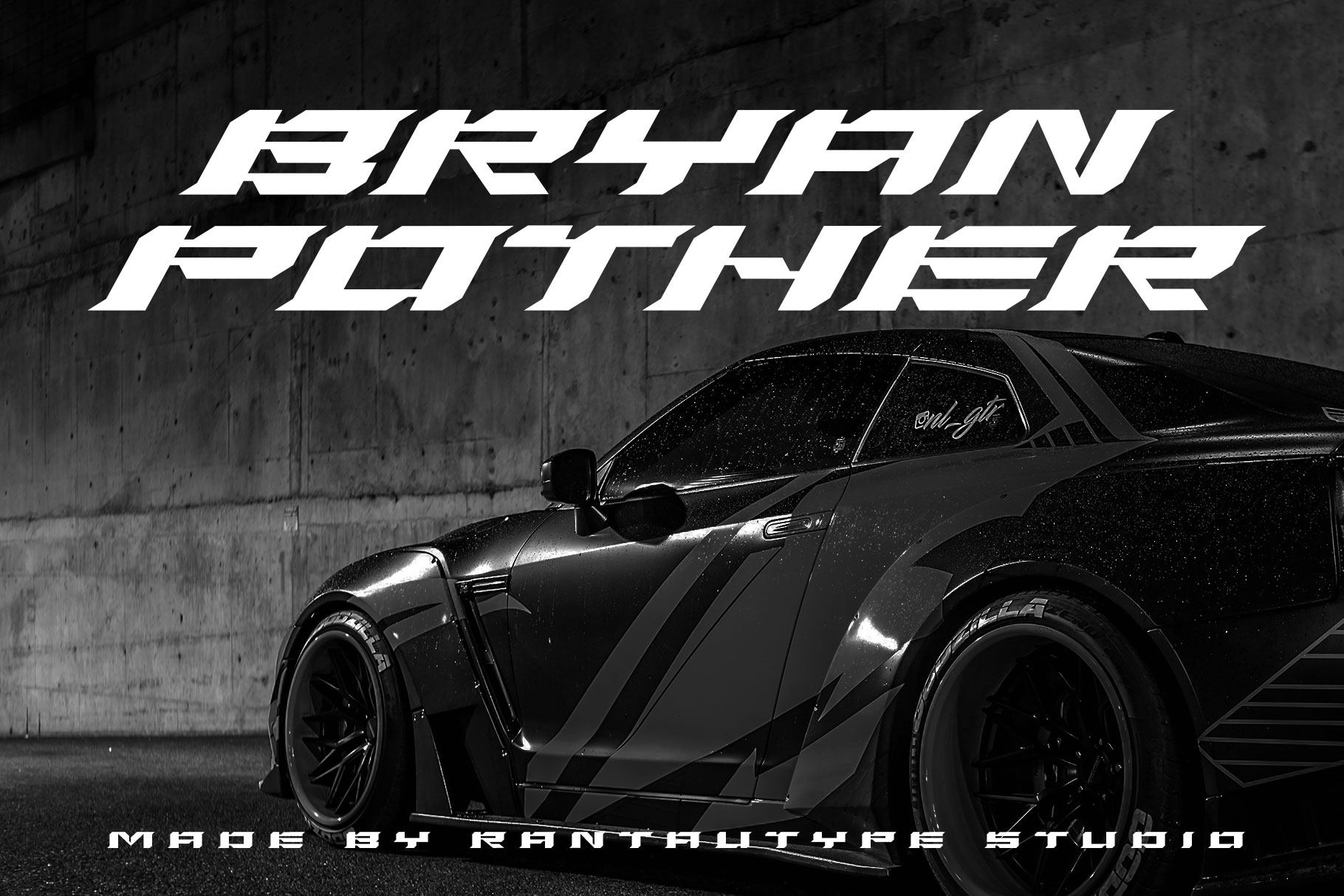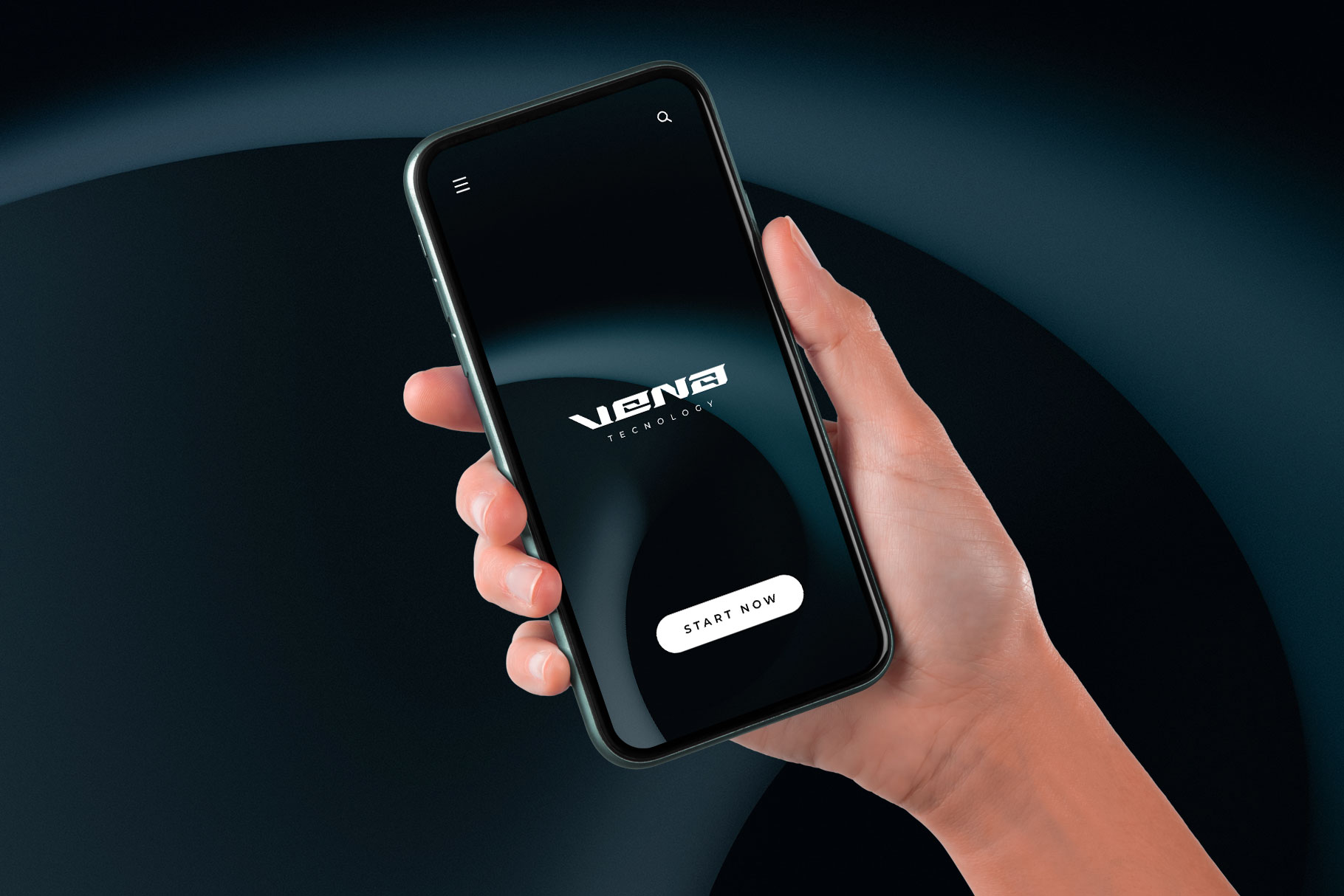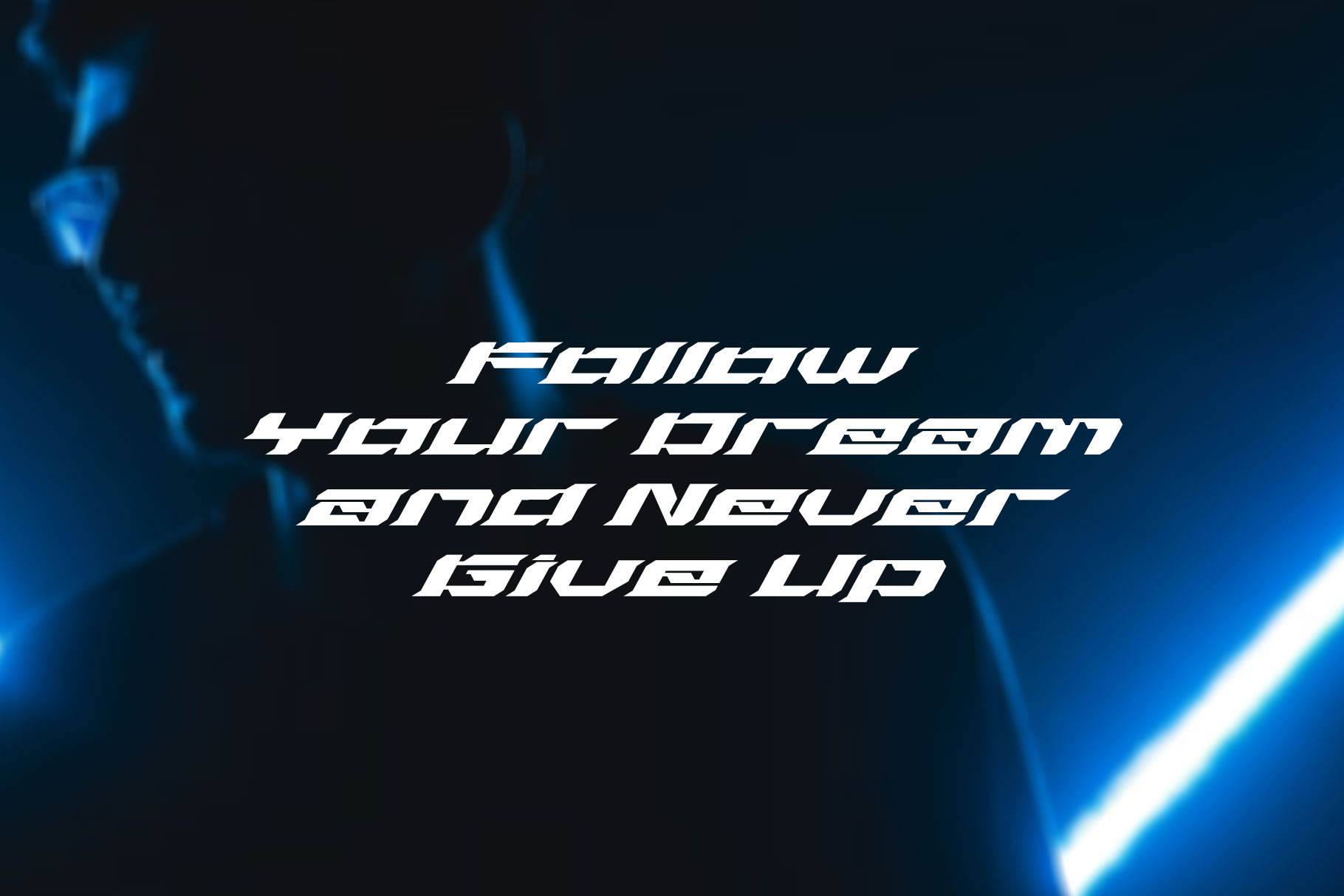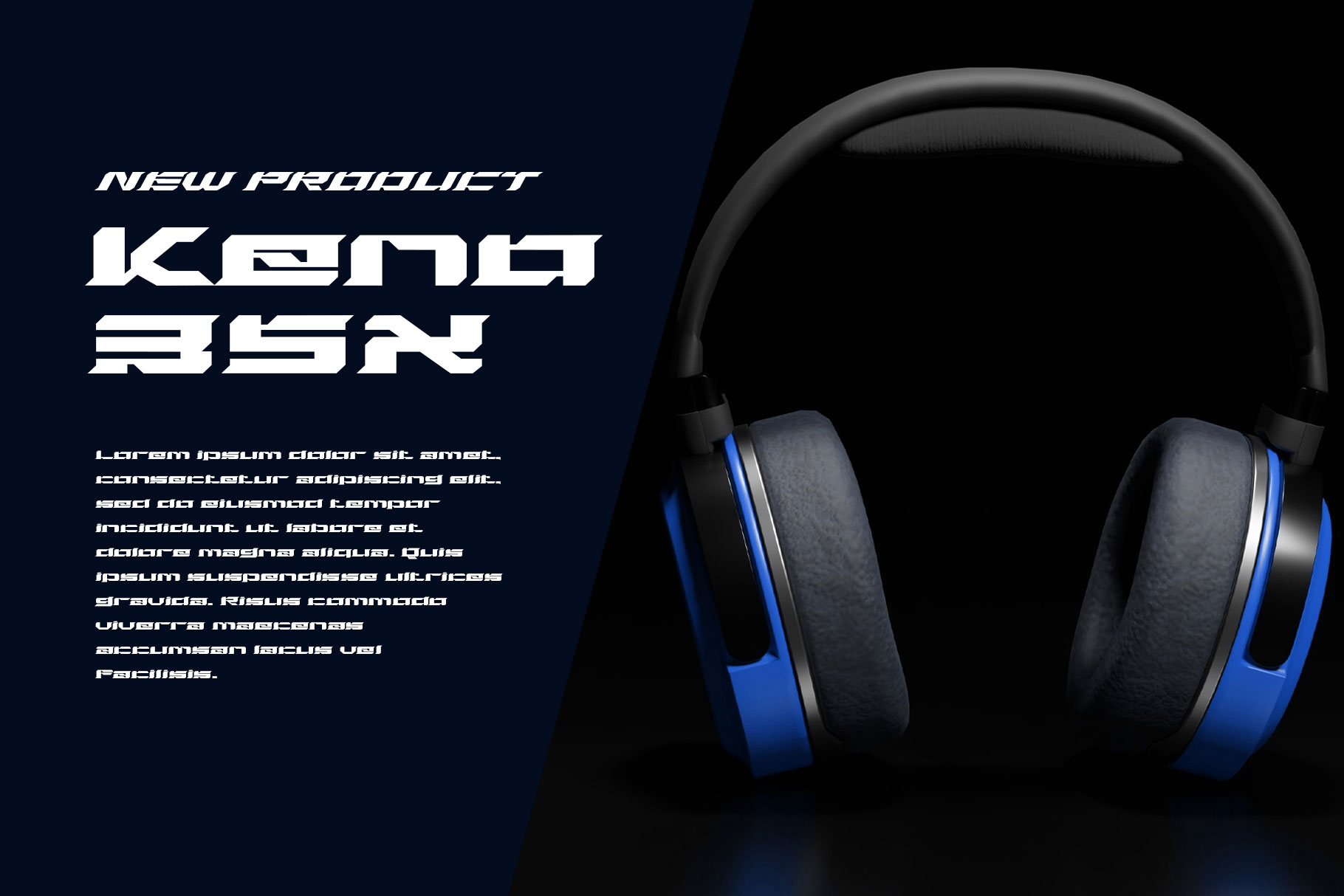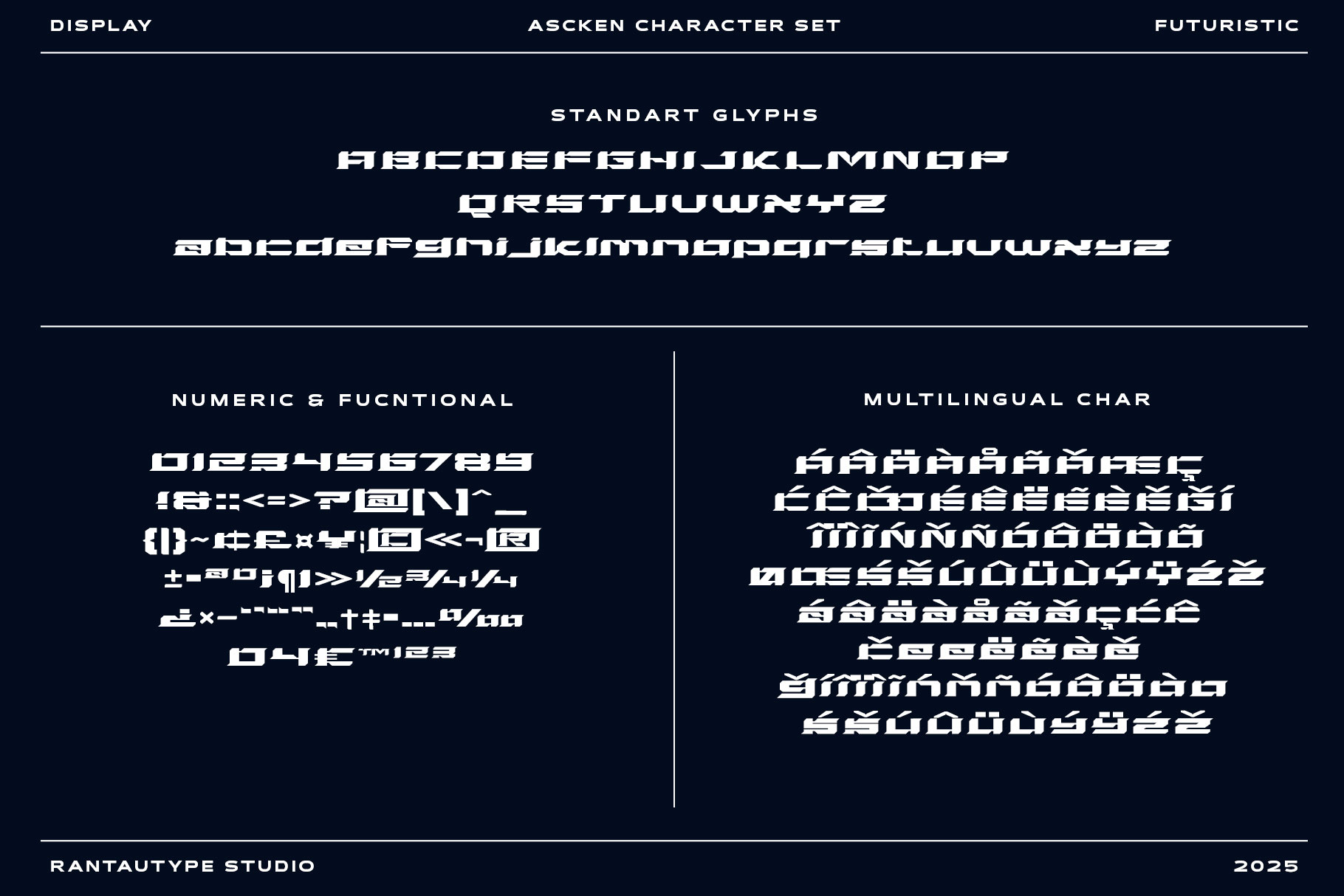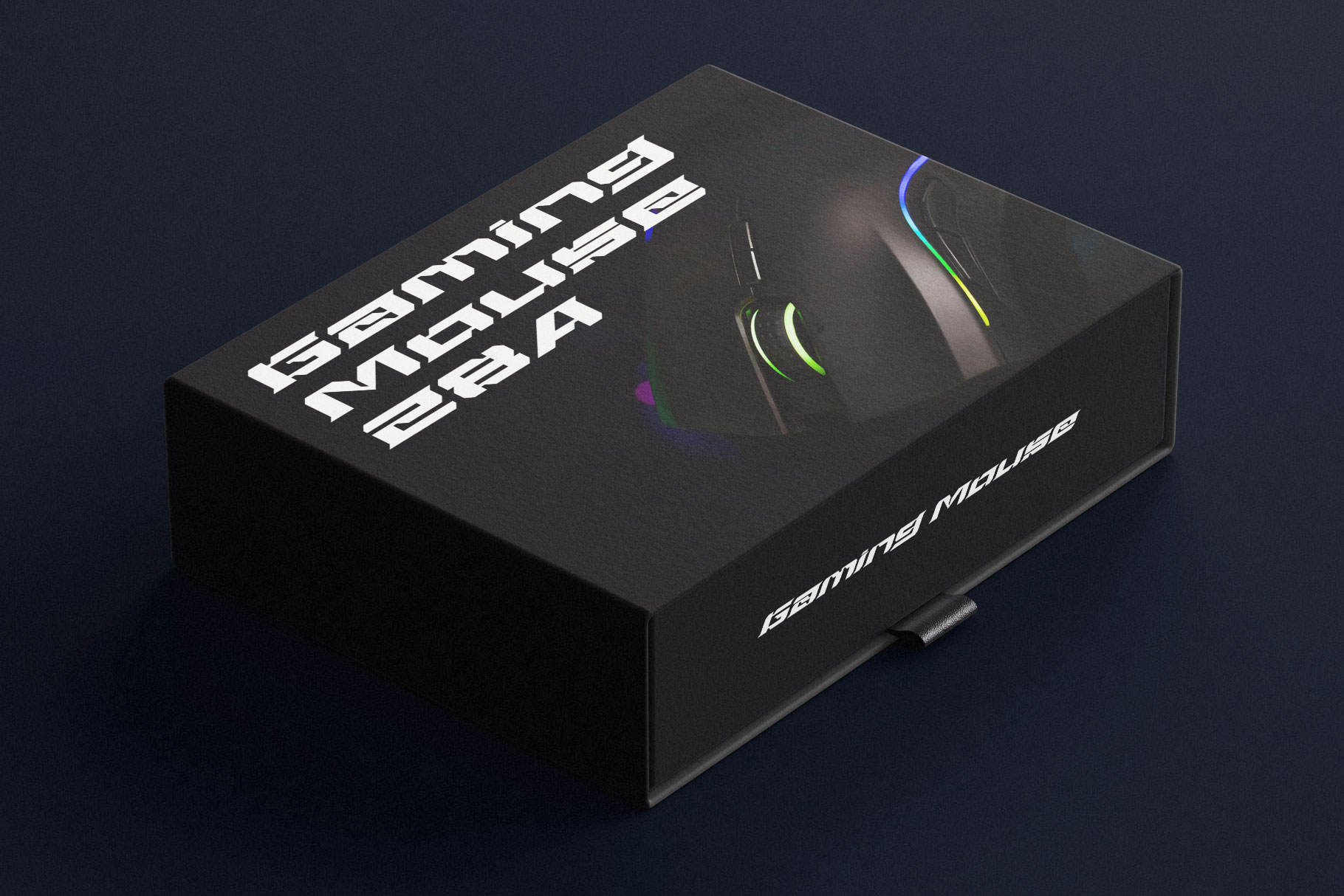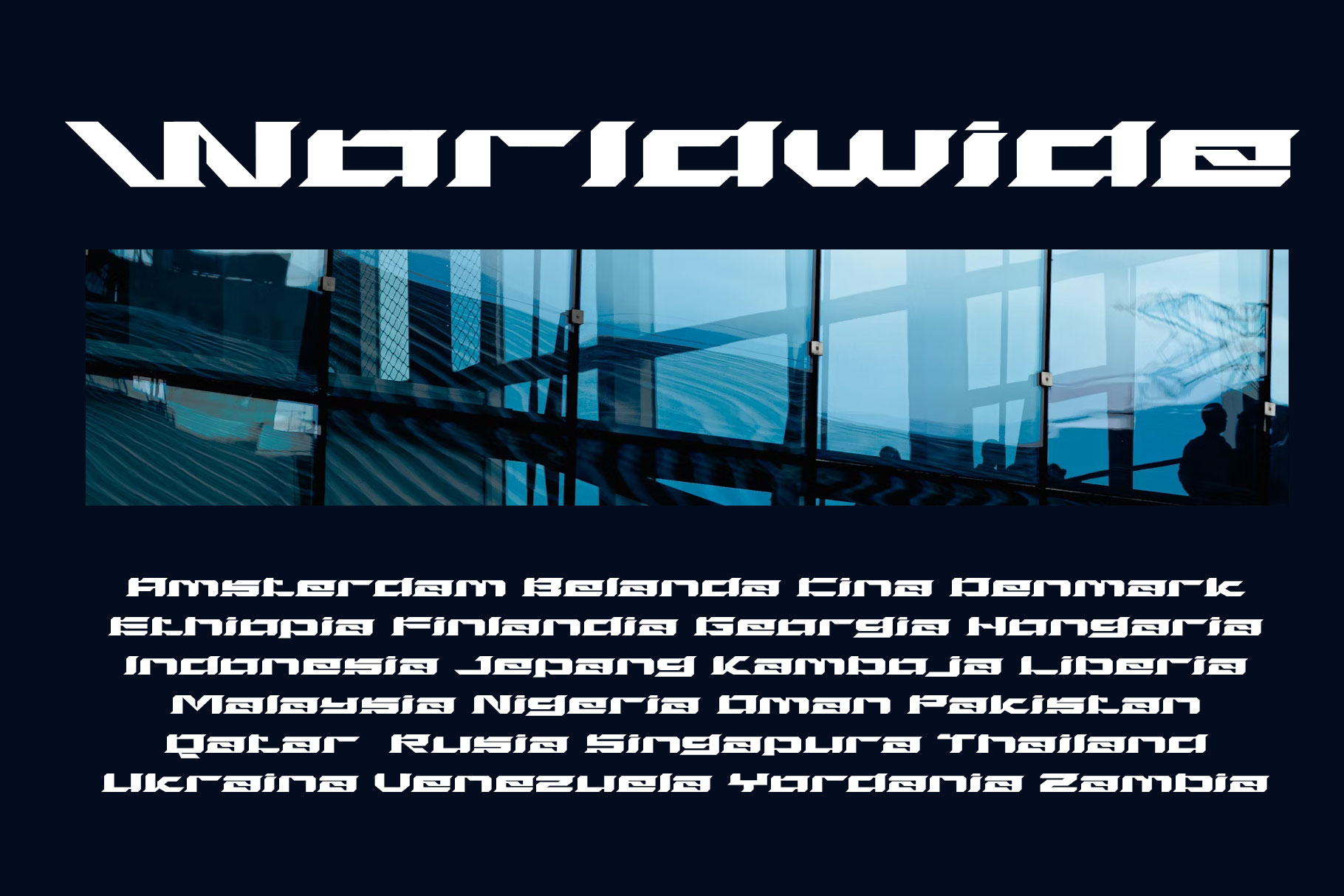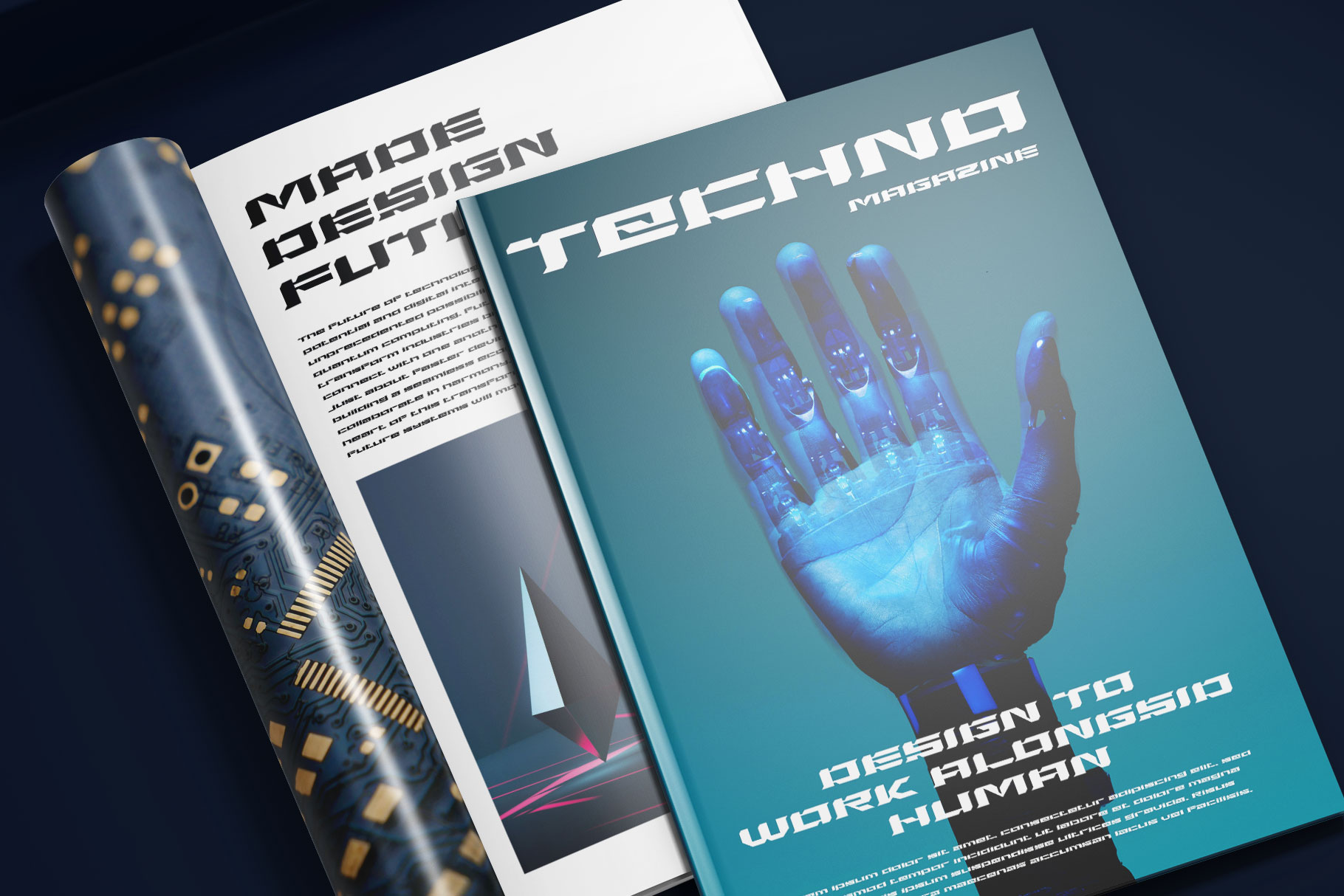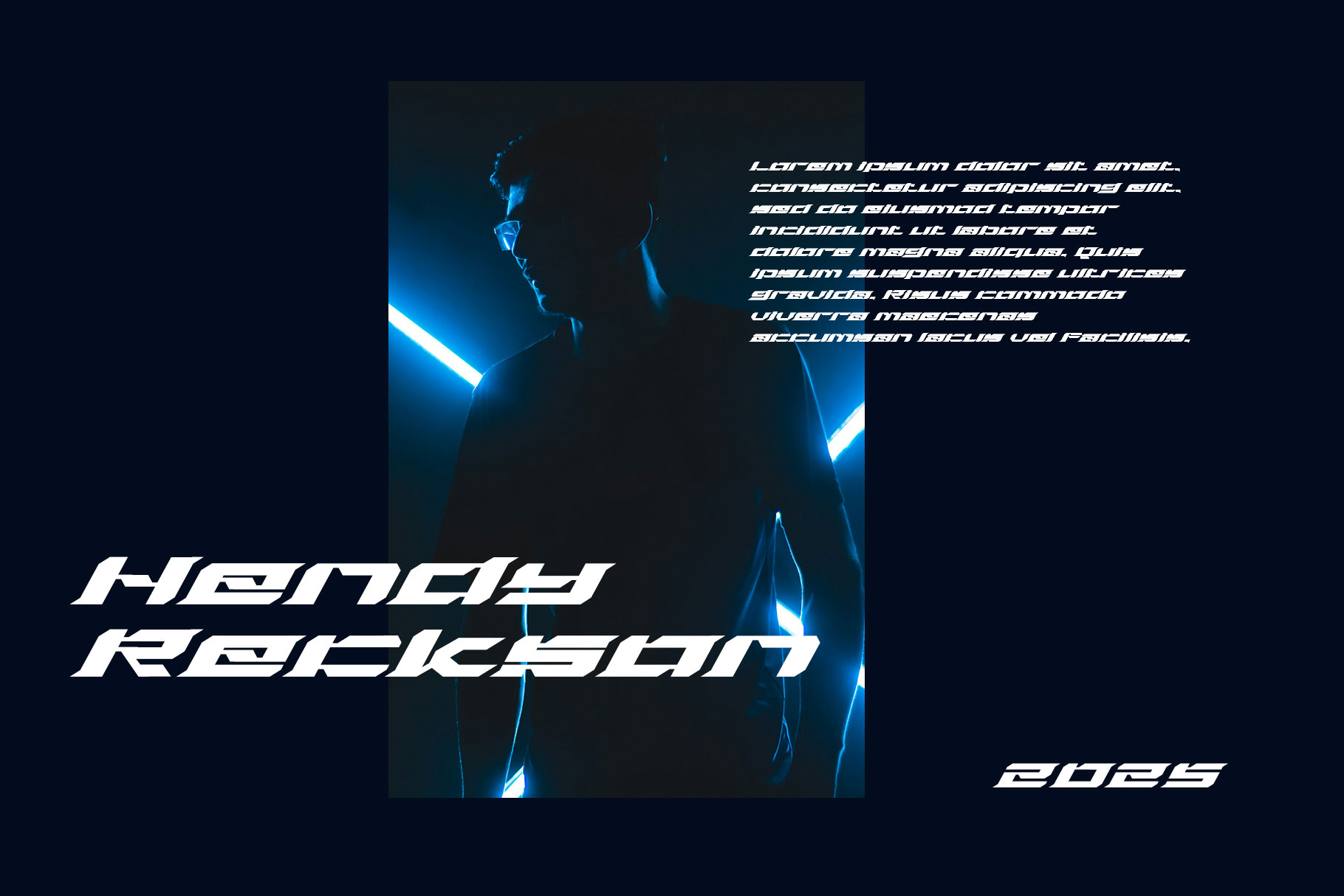
Ascken
Ascken Italic
Ascken is A futuristic display font embodies innovation, sleek design and the forward-thinking spirit of modern creativity. Ascken come with bold lines, geometric precision and unconventional forms, this typeface is designed to capture attention in digital and print media alike. Ascken bring sharp edges, streamlined curves and often experimental letter shapes evoke the aesthetics of advanced technology, space exploration and cyber inspired visuals.
Ascken Futuristic Display Font